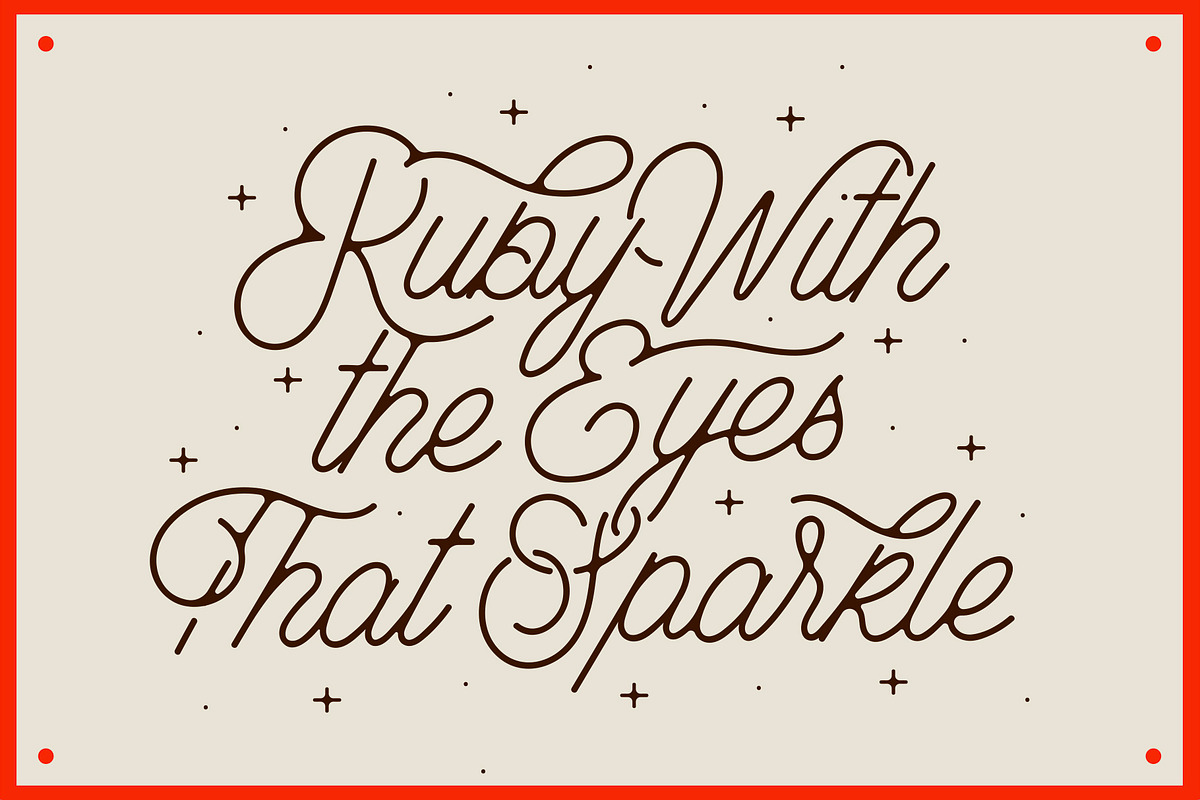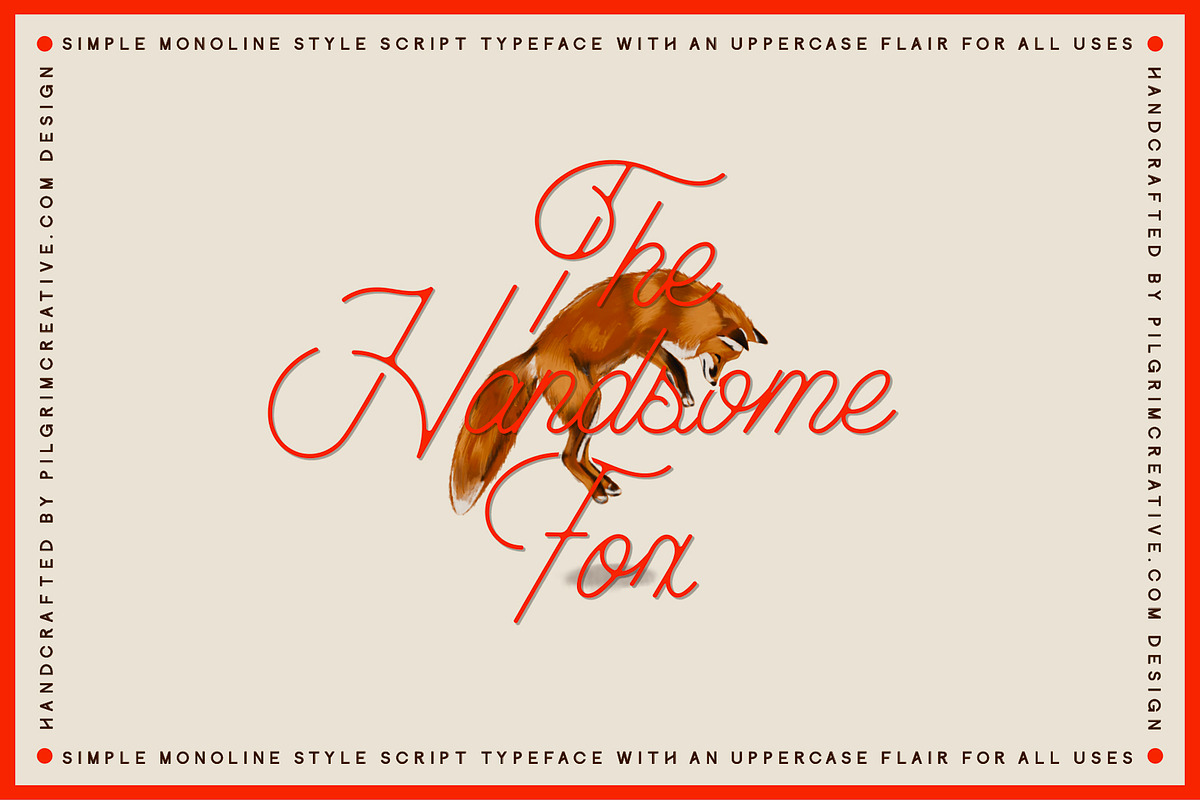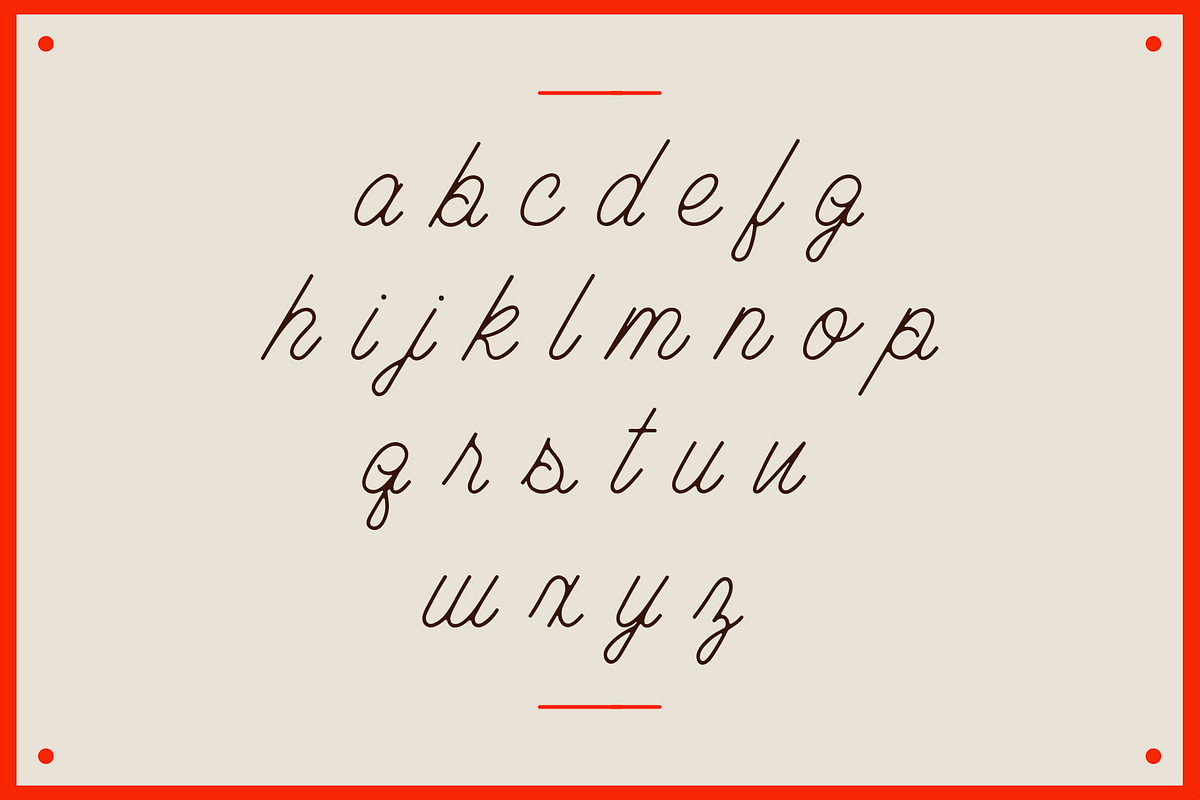
The Handsome Fox
I love a good script font. There are so many beautiful and unique script fonts out there that come in handy in so many ways. I found myself wanting to tweak the script fonts I was using in big and small ways that I decided to just create my own. Plus, you can never have enough fonts right?
The Handsome Fox is the product of that and I am very thrilled with the way it turned out. I hope you will enjoy this font as much as I enjoyed making it and create something awesome!